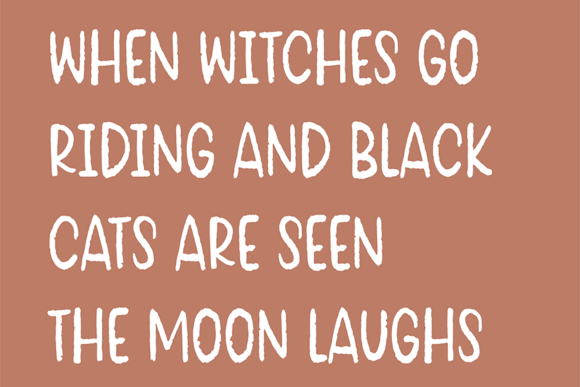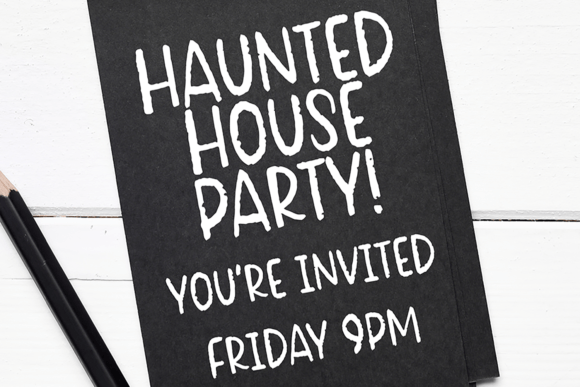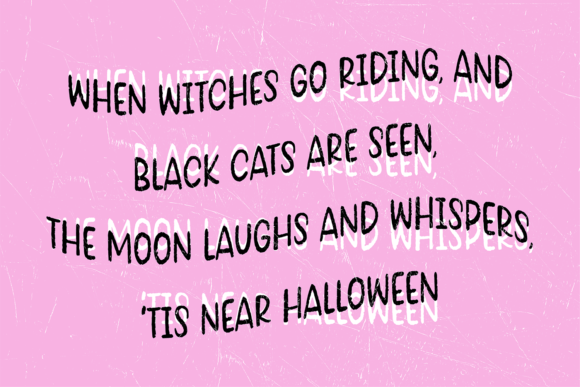
Introducing “Ghost Print” – A Distressed Halloween Handwriting Font
Are you looking for a unique and spooky font to add a touch of Halloween magic to your designs? Look no further than “Ghost Print”, a distressed Halloween handwriting font that’s perfect for creating eye-catching party invitations, web graphics, and other Halloween decor.
What is “Ghost Print”?
“Ghost Print” is an installable font that’s specifically designed to give your Halloween designs a creepy and nostalgic feel. This font is perfect for designers, crafters, and DIY enthusiasts who want to add a personal touch to their Halloween projects. With its distressed edges and handwriting-style letters, “Ghost Print” is sure to add a spooky charm to any design.
Key Features of “Ghost Print”
- Distressed Edges: The edges of the letters in “Ghost Print” are intentionally distressed to give them a worn and vintage look. This feature adds a unique texture to your designs and sets them apart from other fonts.
- Cuttable: “Ghost Print” is a cuttable font, which means you can use it to create intricate designs and shapes for your Halloween projects. However, keep in mind that the distressed edges may not be suitable for all cutting applications.
- Halloween-themed: This font is specifically designed for Halloween, making it perfect for creating spooky party invitations, web graphics, and other Halloween decor.
Uses for “Ghost Print”
“Ghost Print” is a versatile font that can be used for a variety of Halloween-themed projects, including:
- Party Invitations: Create spooky and eye-catching party invitations that will set the tone for your Halloween party.
- Web Graphics: Use “Ghost Print” to create Halloween-themed web graphics, such as banners, buttons, and icons.
- Halloween Decor: Use “Ghost Print” to create DIY Halloween decor, such as signs, banners, and other decorations.
- Crafting Projects: “Ghost Print” is perfect for crafters who want to add a personal touch to their Halloween crafting projects, such as scrapbooking, card making, and iron-on designs.
Tips for Using “Ghost Print”
Here are a few tips for getting the most out of “Ghost Print”:
- Experiment with Colors: “Ghost Print” looks great in a variety of colors, so don’t be afraid to experiment with different color schemes to find the one that works best for your project.
- Use with Other Halloween Fonts: “Ghost Print” can be paired with other Halloween fonts to create a unique and eye-catching design.
- Pay Attention to Font Size: The distressed edges of “Ghost Print” can be subtle, so make sure to use a font size that’s large enough to showcase the font’s unique features.
“Ghost Print” is a unique and versatile font that’s perfect for adding a touch of Halloween magic to your designs. With its distressed edges and handwriting-style letters, this font is sure to add a spooky charm to any project. Whether you’re a designer, crafter, or DIY enthusiast, “Ghost Print” is a great addition to your font collection.